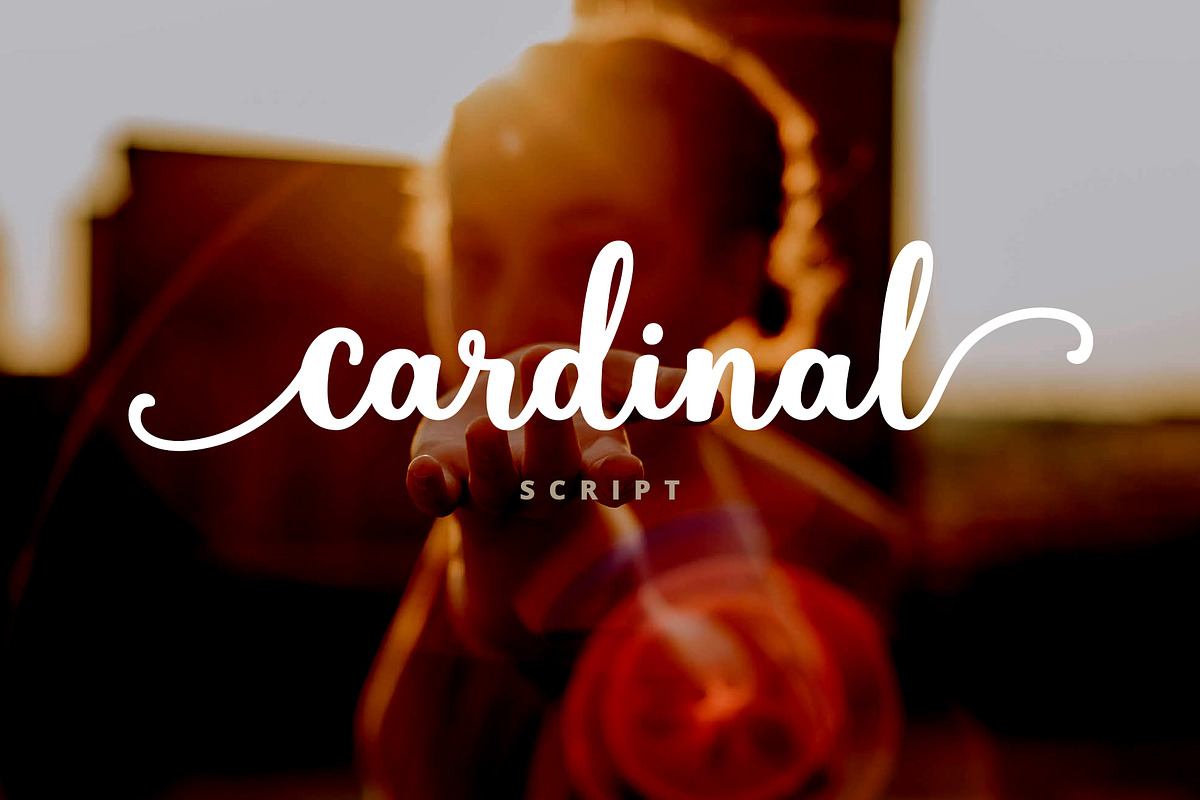
Cardinal Script Font Free Download is a beautifully flowing script typeface that brings elegance, warmth, and a personal touch to any design. With its smooth curves, graceful connections, and modern calligraphy style, this font is perfect for wedding invitations, feminine branding, stationery, social media graphics, and handcrafted product packaging.
Designed to feel like natural handwriting with a refined twist, Cardinal Script adds sophistication without losing its charm. It works beautifully both as a standalone headline font and paired with serif or sans-serif fonts for a polished, professional look.
Let your designs speak with grace and personality through the timeless flow of Cardinal Script.